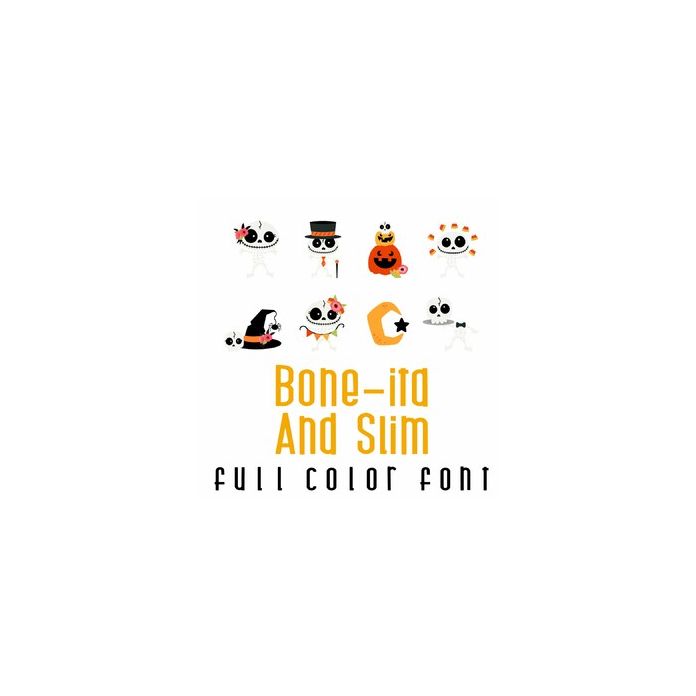
This adorable full-color doodlebat font features 26 cute and scary skeletons, perfect for cards, crafts, gifts, decor, scrapbook pages, planner stickers, and more!